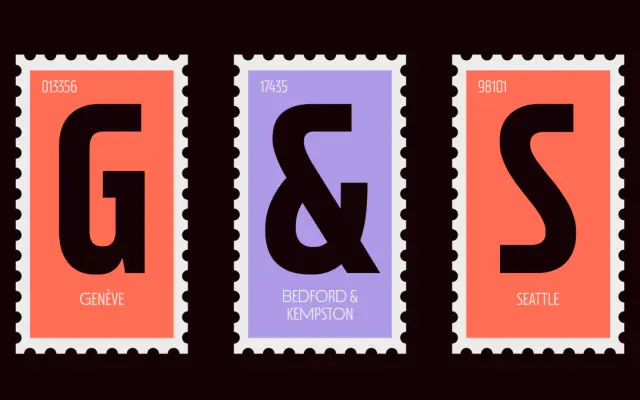
Postamp Grotesk
A condensed geometric sans drawn from early American stamp lettering, with a variable width axis that selectively widens individual letterforms as visual accents within condensed text.
Designed by Ivelina Martinova and released in January 2026, the family takes its starting point from a U.S. postage stamp bearing President James Buchanan's portrait and expands outward through early American type specimens from the 1920s and 30s. Five weights run in two cuts each: a fully condensed version and a Mixed cut where letters such as B, C, G, M, O and R carry expanded widths alongside otherwise condensed forms. A variable font covers both weight and width axes, and the character set includes Extended Latin and Cyrillic.
A condensed geometric sans with grotesk characteristics, drawing from early American type specimens and stamp lettering. The variable width axis and selectively expanded letterforms place it firmly in the geometric-grotesk tradition.